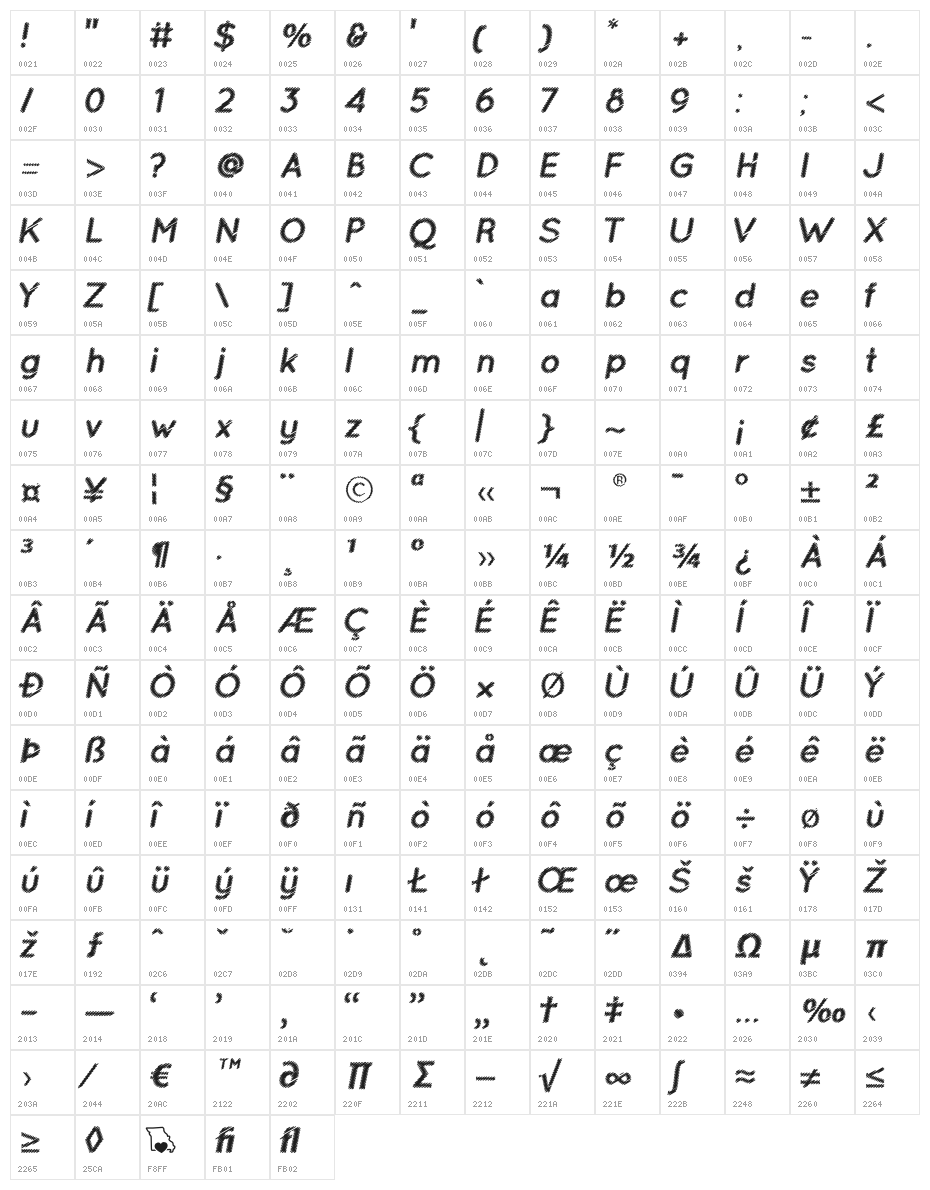
Ocie Bold Italic Font
Ocie Bold Italic Description
This font features a bold and italicized style with a unique textured appearance. The letters are filled with diagonal lines, creating a dynamic and energetic look. The uppercase and lowercase letters maintain a consistent slant, enhancing the italic effect. The numbers and special characters follow the same design, ensuring uniformity across all glyphs. This font's boldness makes it stand out, while the textured lines add a layer of complexity and interest. The overall design is modern and eye-catching, suitable for projects that require a strong visual impact.
| Proposed Projects | Ideal for posters, branding, headlines, and any design needing a bold statement. |